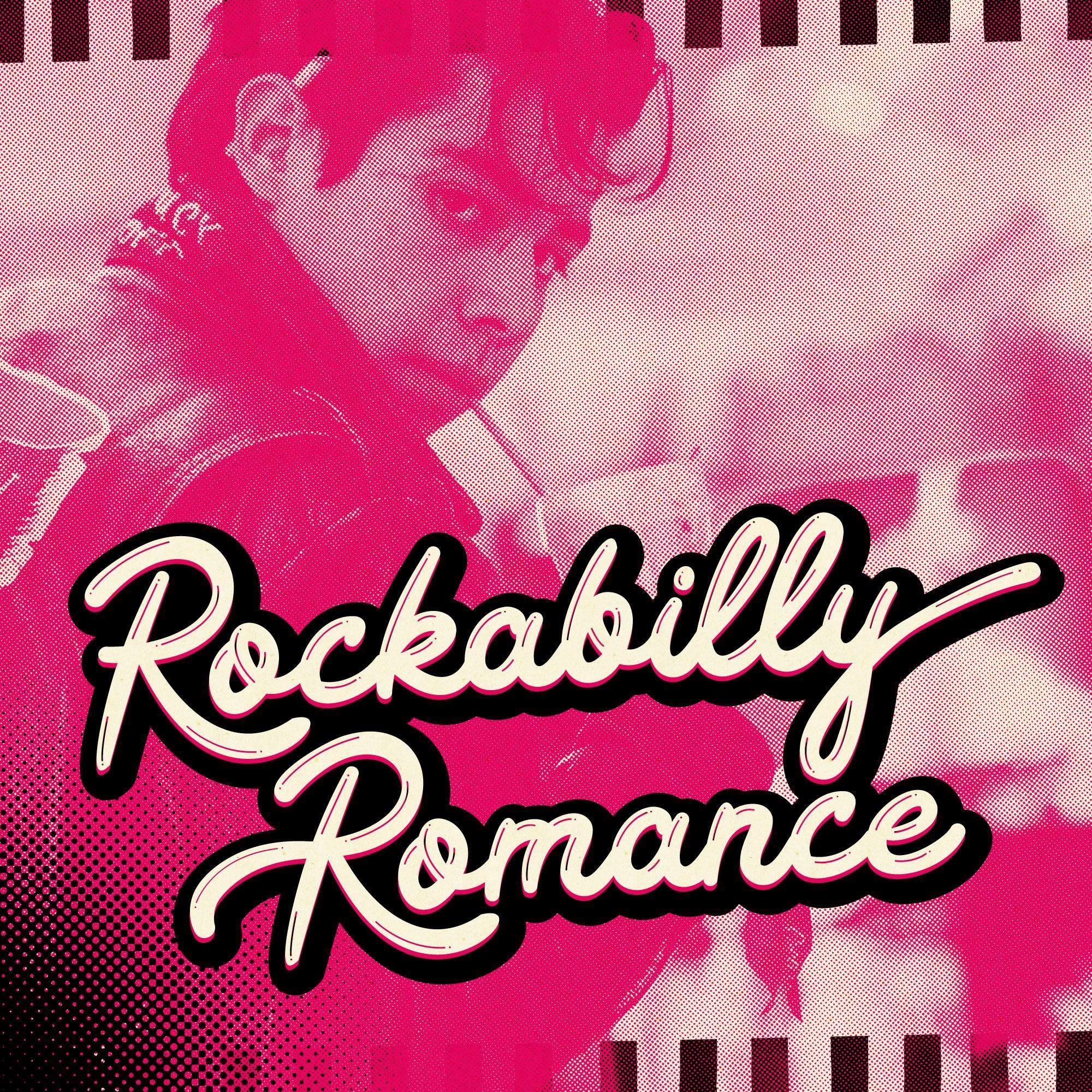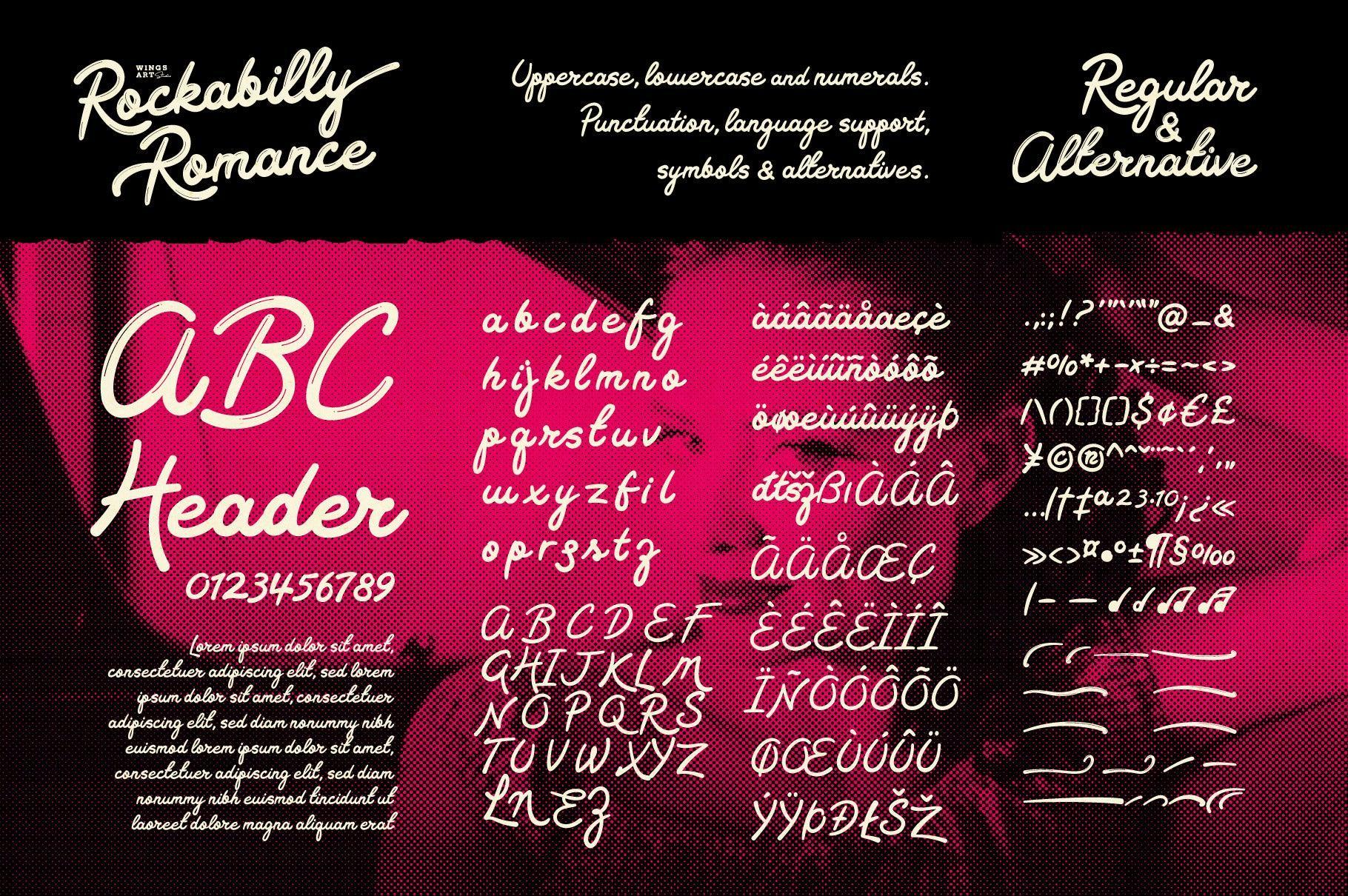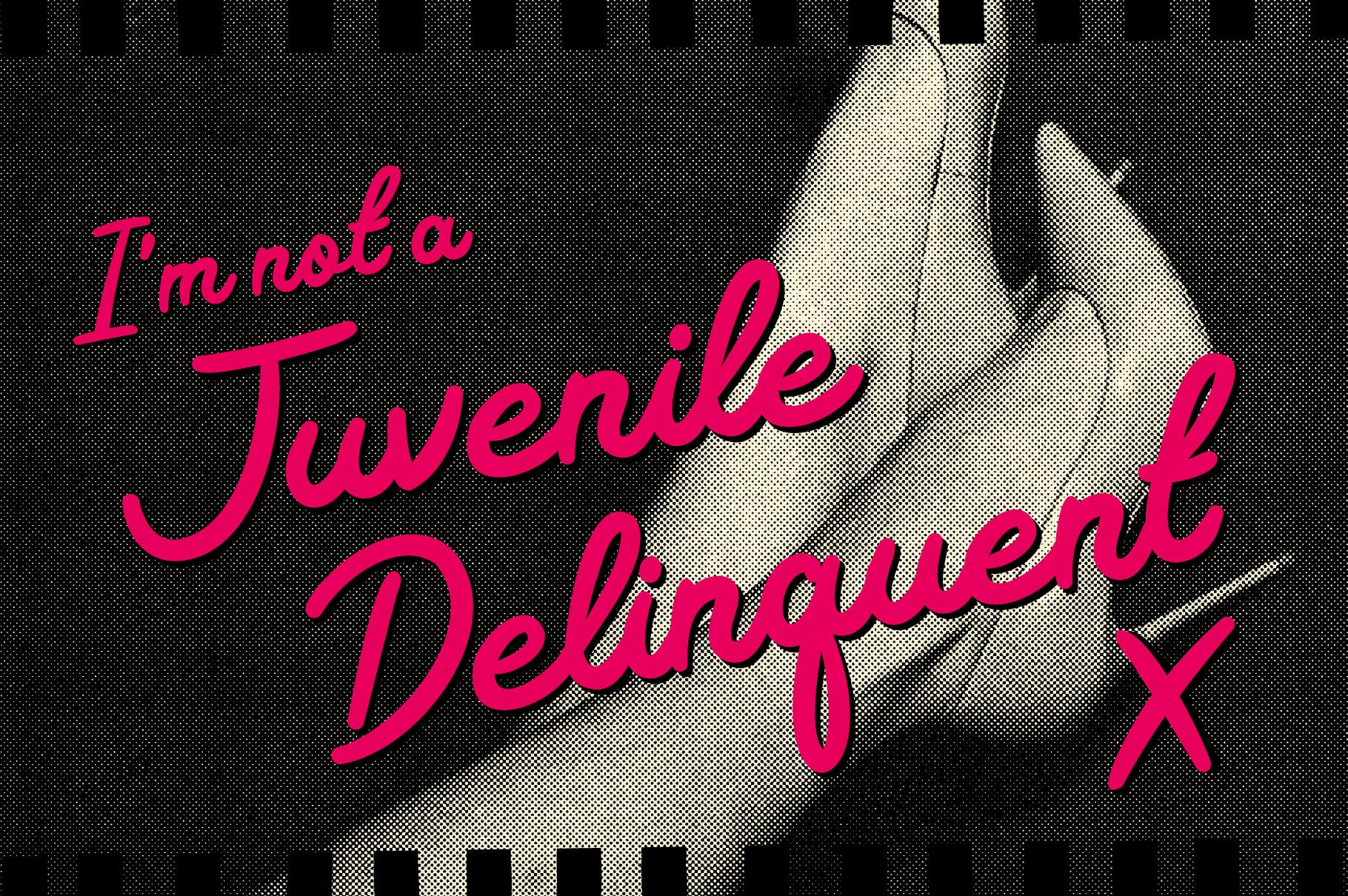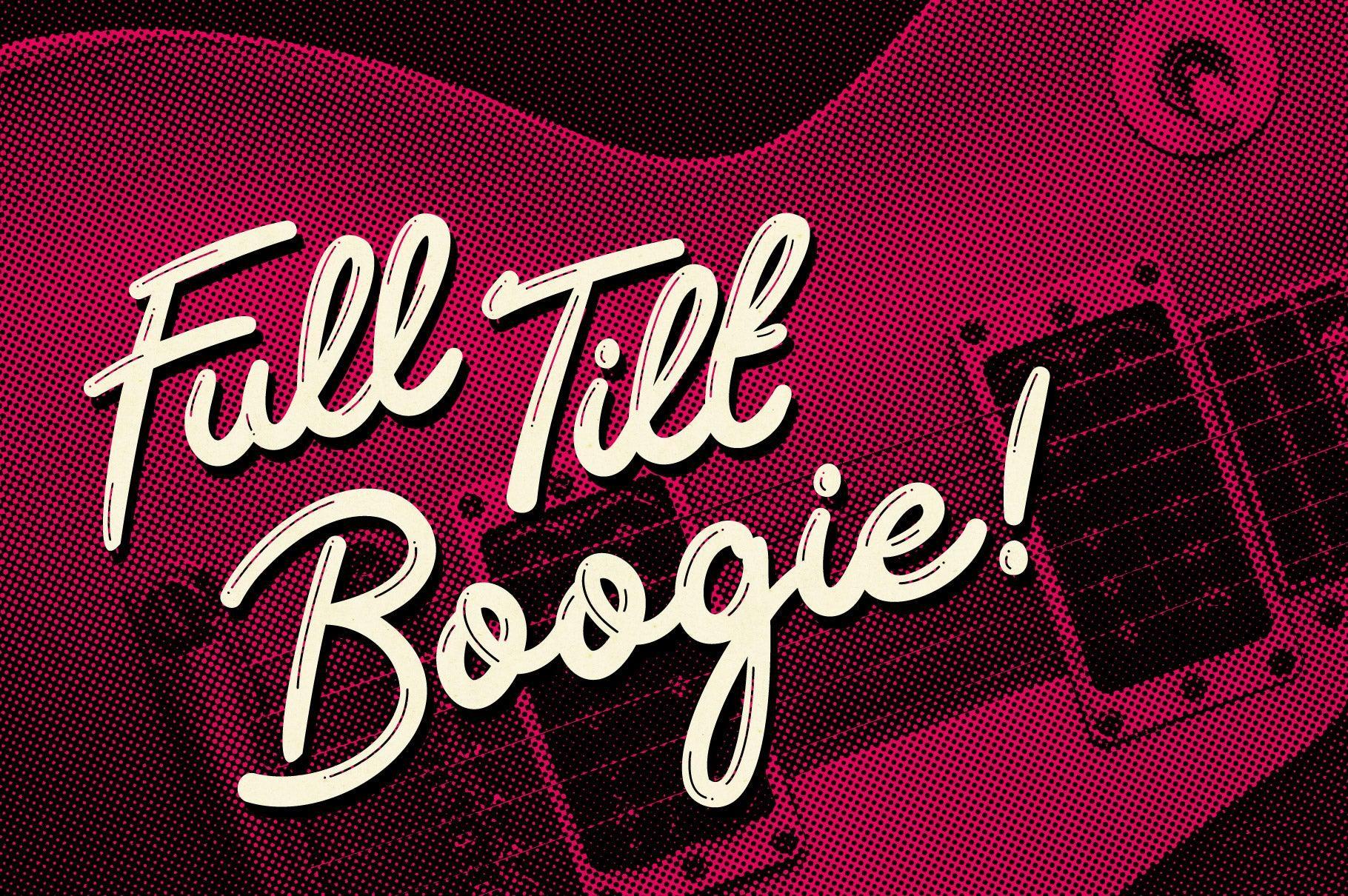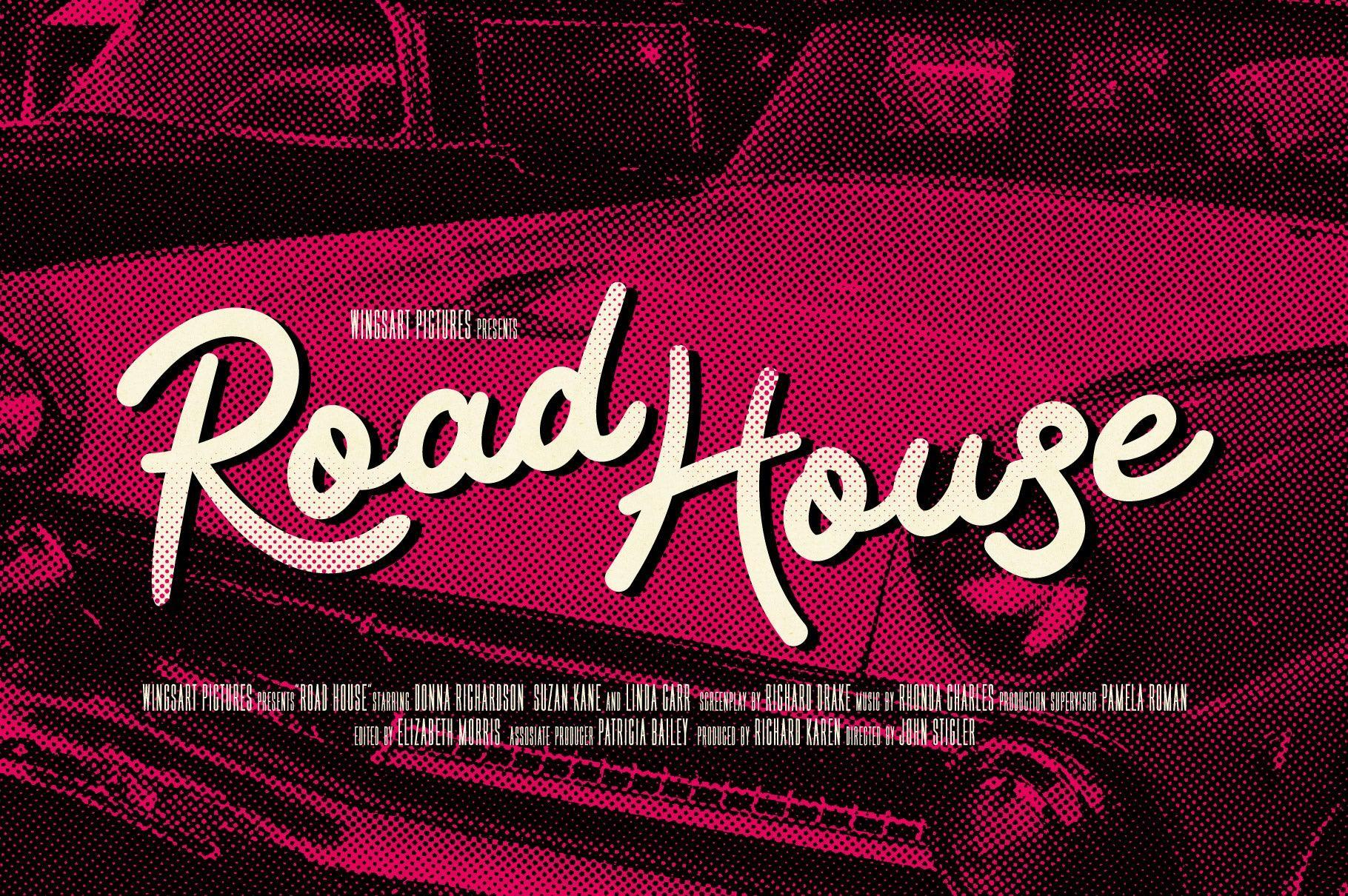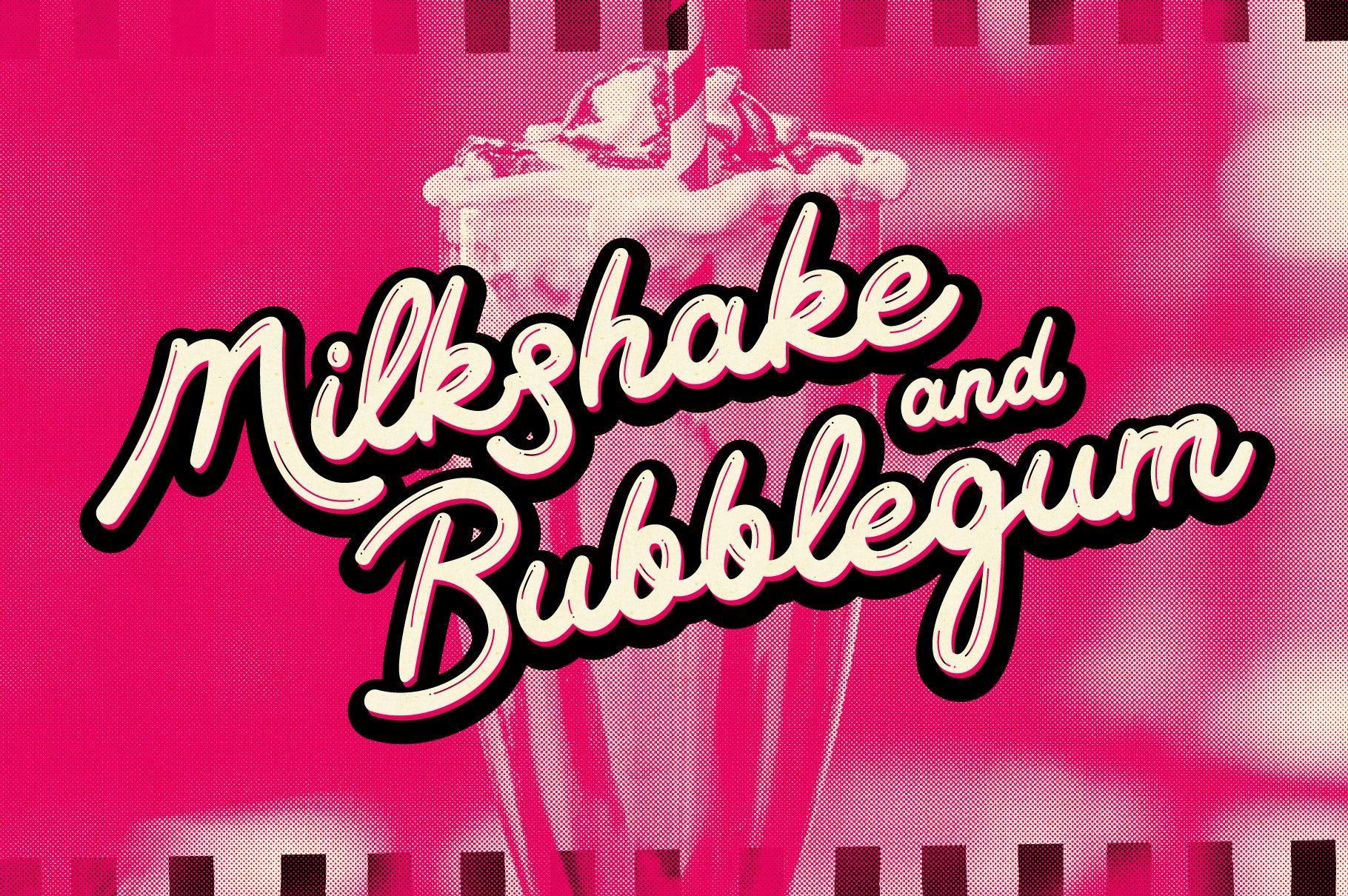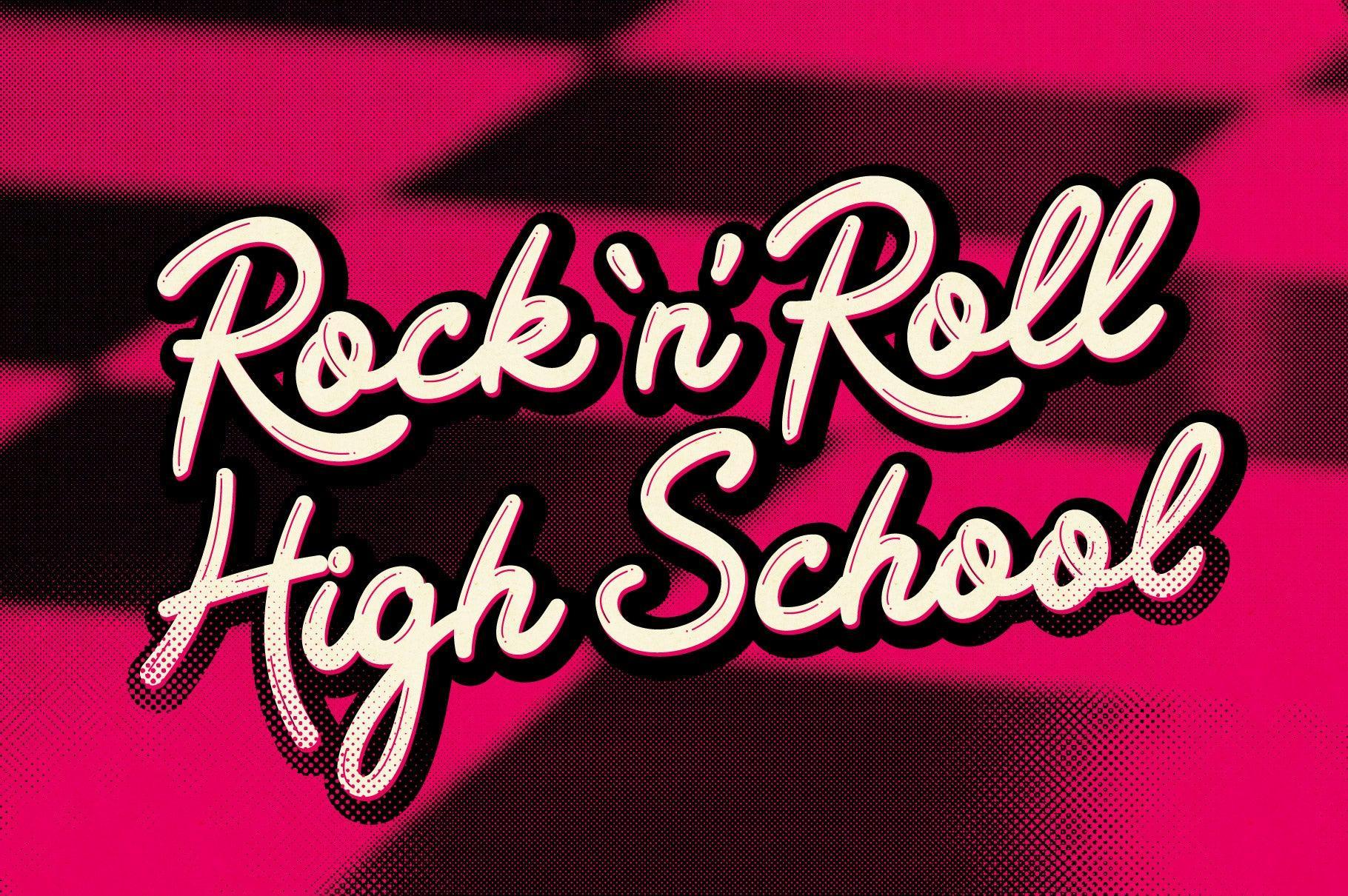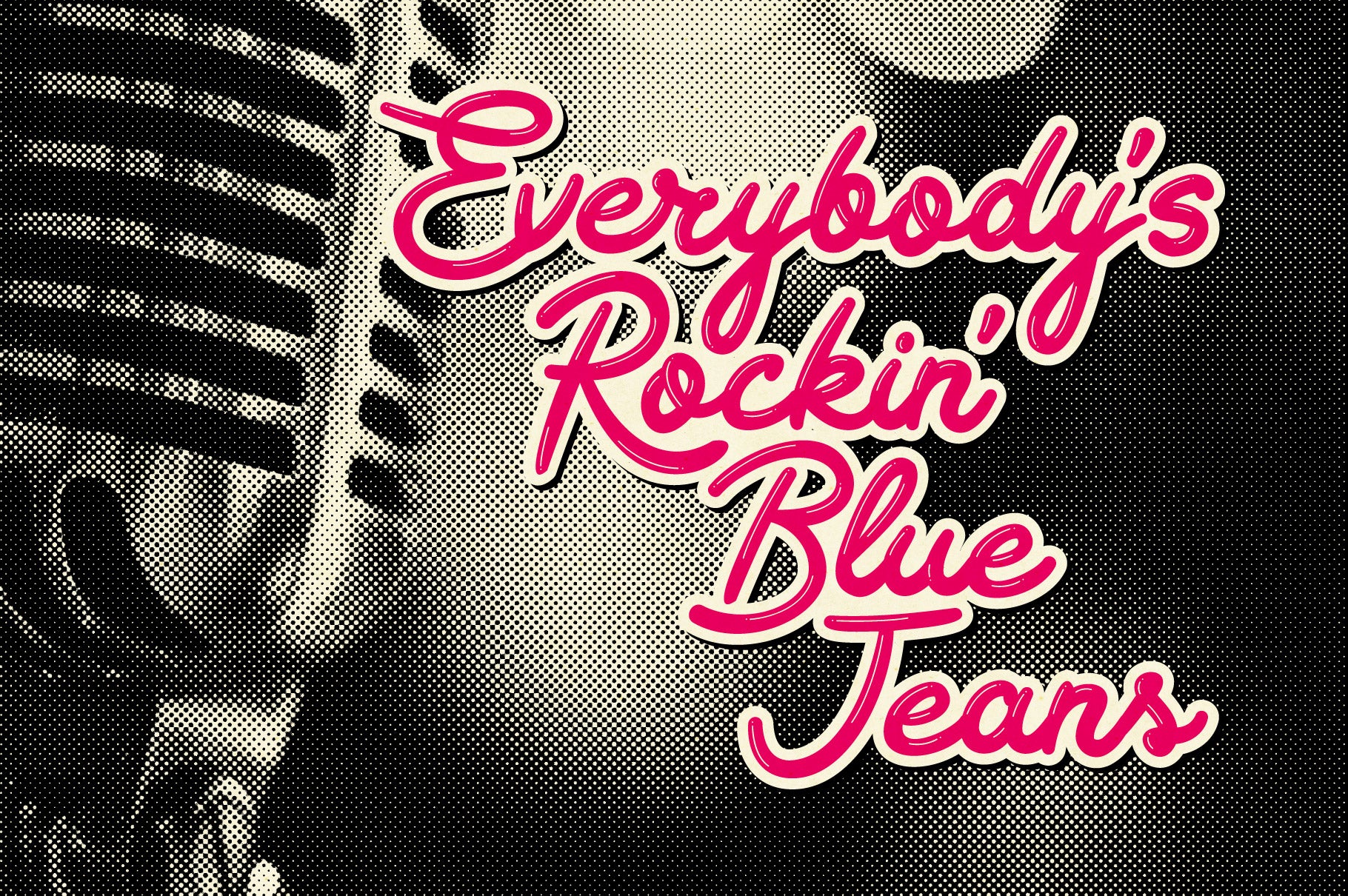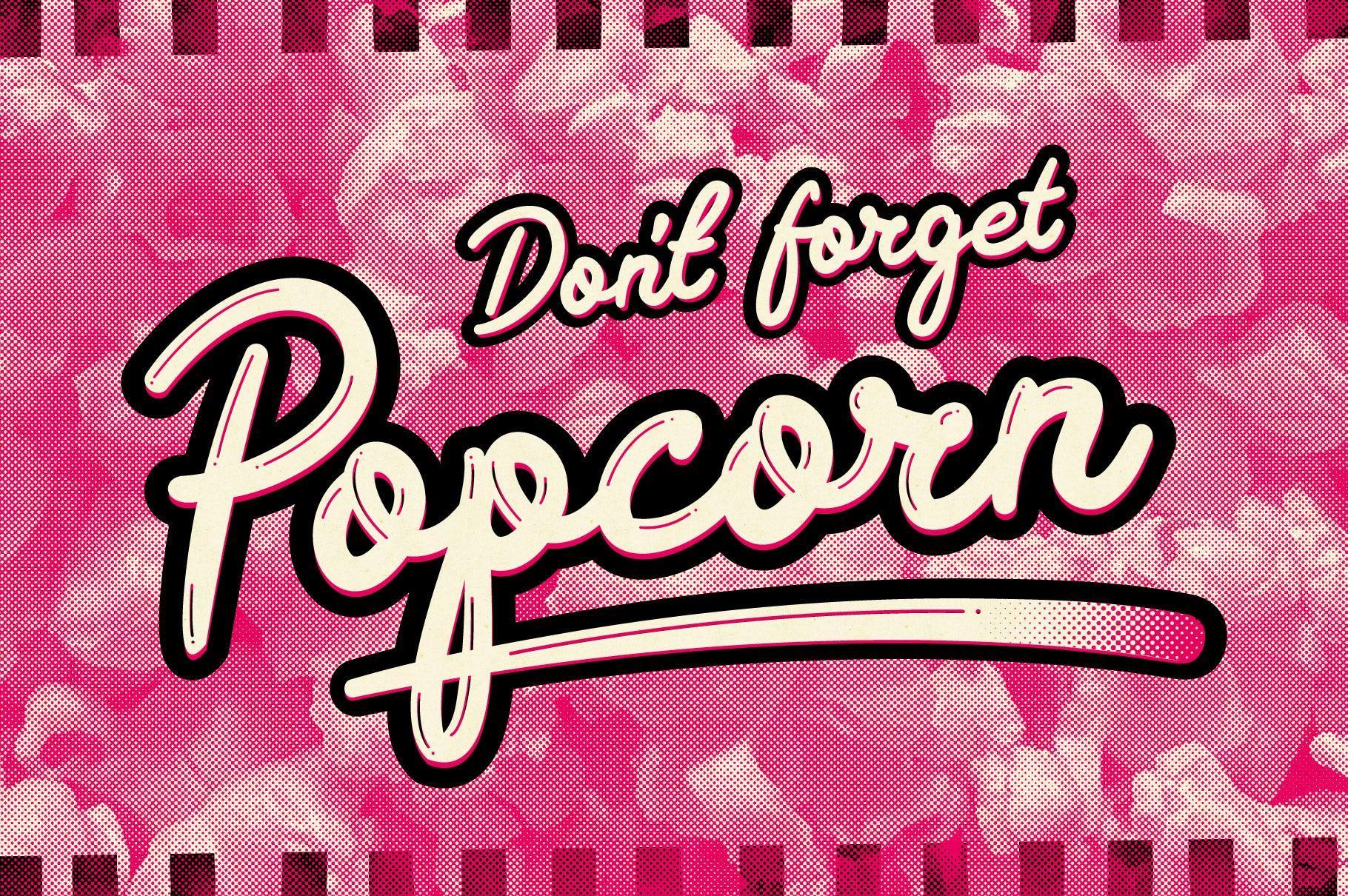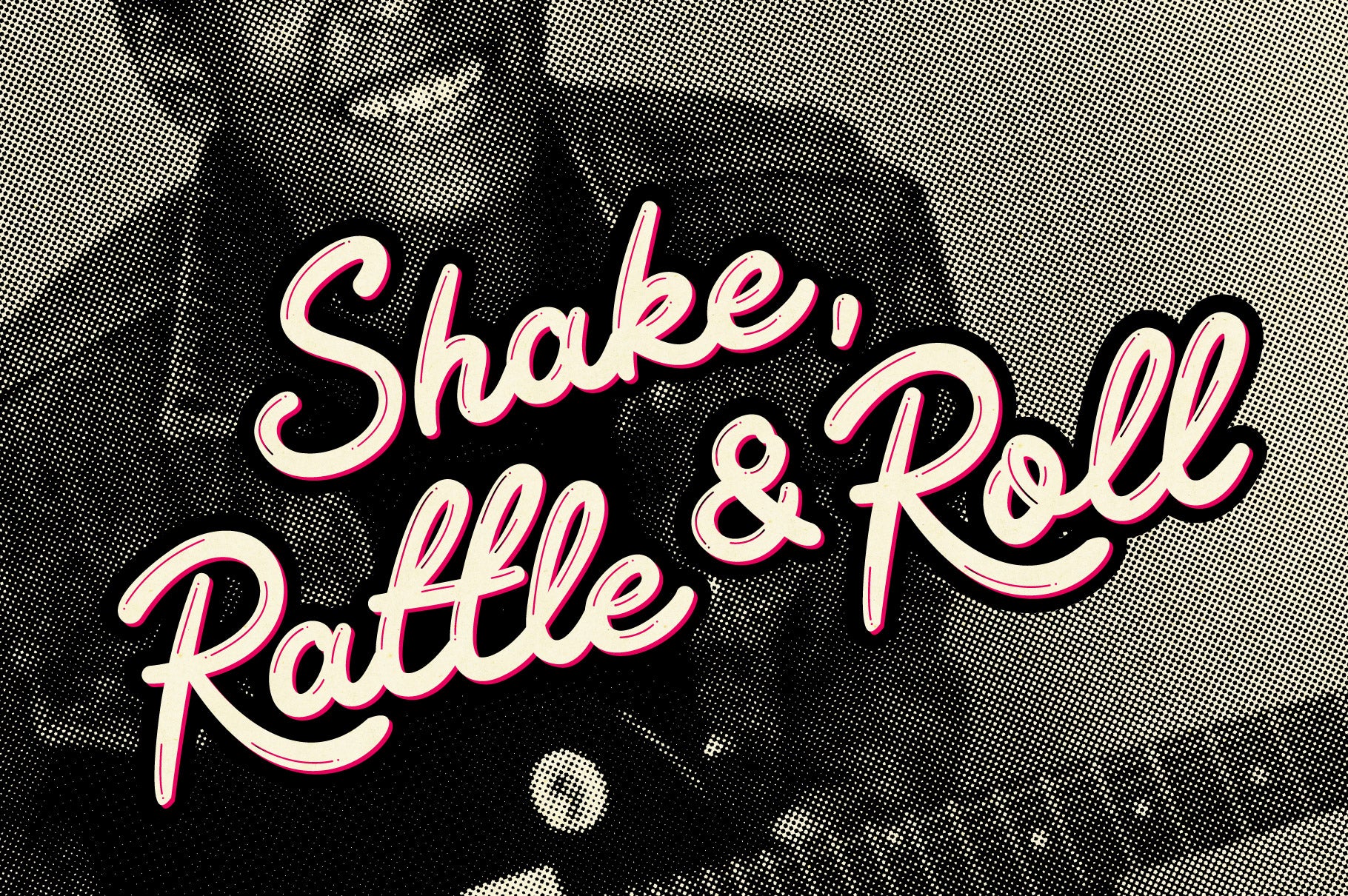
Rockabilly Romance - A 1950s Rock ’n’ Roll Inspired Retro Script Font
Rockabilly Romance is a 1950s Rock ’n’ Roll inspired script font featuring fast curves and a hand-made free-flowing style, along with an alternative version that includes lipstick gloss. It includes unique uppercase and lowercase characters, punctuation, numerals, underlines, and a variety of special ligatures and alternative characters, making it suitable for bold display purposes.
Ideal for retro-inspired graphic design and 1950s Americana aesthetics. Perfect for menu headers, posters, movie titles, and album covers, ensuring a bold and nostalgic visual impact.